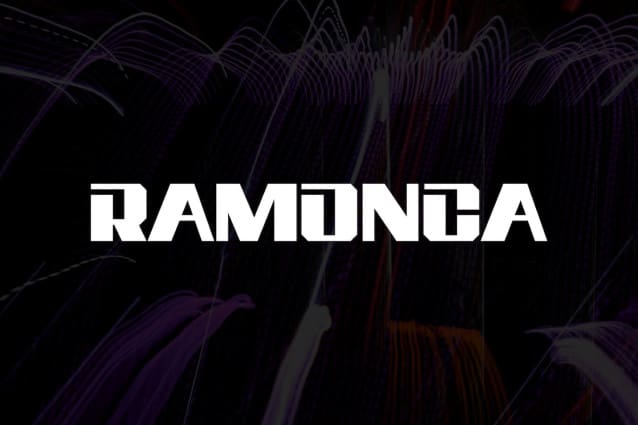
Zincoe Display Font
Zincoe Display Font, is an elegant and authentic display font. This font was created for all forms of business and branding such as clothing, logos, skate boards and others according to your needs.